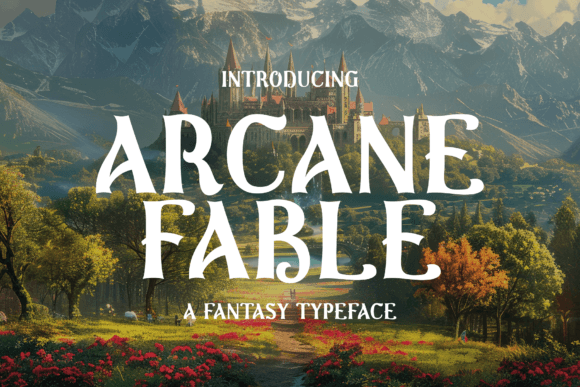
Unleash the Magic of Your Story
As a writer, there’s no feeling quite like conjuring a world of wonder and magic, where the boundaries of reality blur and the imagination knows no bounds. It’s in these moments that the right words, the right tone, and the right typography come together to transport readers to new realms. And that’s where the Arcane Fable Font comes in – a fantasy-inspired typeface designed to bring your stories to life with a touch of whimsy and grandeur.
Perfect for book covers, chapter headings, and body text, the Arcane Fable Font is a valuable asset for designers looking to elevate their storytelling. Its enchanting design not only adds a layer of visual enchantment but also ensures readability, making it an ideal choice for writers and designers alike. Whether you’re crafting epic sagas, fairy tales, or whimsical adventures, the Arcane Fable Font provides the perfect blend of fantasy flair and readability.
Arcane Fable Font Key Features
- Unique Characteristics: Hand-drawn, fantasy-inspired design with intricate details and ornate flourishes
Arcane Fable Font Review
Overall, I’m impressed with the Arcane Fable Font. ✨ It has a unique, mystical feel that would be perfect for fantasy-themed projects. The font’s intricate details and subtle texture add a layer of depth that sets it apart from more common fonts.
The font’s readability is another strong point. ✨ Even at smaller sizes, the text remains clear and easy to decipher, making it suitable for body text as well as headings.
- Unique design that captures a mystical, fantasy feel
- Intricate details and subtle texture add depth to the font
- High readability, even at smaller sizes
Limitsations:
- May not be suitable for projects that require a more straightforward, modern aesthetic
- Some characters may be difficult to read at very small sizes
- ⚠️ Can be quite bold, which may not be suitable for all designs
Overall, I’d recommend the Arcane Fable Font for projects that require a unique, mystical feel. While it may have some limitations, its strengths make it a great choice for fantasy-themed designs.
Some tips for getting the most out of the Arcane Fable Font include using it for fantasy-themed designs, such as book covers, posters, and character designs. You can also use it for creating a mystical or magical atmosphere in your designs. Experiment with different font sizes and styles to achieve the desired effect.
Alternatives to Arcane Fable Font
Ostrich Sans is a modern, sans-serif font that is perfect for designs that require a clean and minimalist feel. It’s ideal for branding, advertising, and other materials where a simple and elegant look is desired. Ostrich Sans is more modern and clean compared to Arcane Fable Font, which has a more mystical and enchanting atmosphere.
Q: What is the recommended font size and resolution for optimal display of Arcane Fable?
For optimal display of Arcane Fable Font, we recommend using a font size between 12 and 24 points, depending on the design application and intended use. A resolution of 300 DPI (dots per inch) is also recommended for high-quality printing and display. This will ensure that the font’s intricate details and ornate features are rendered clearly and accurately.